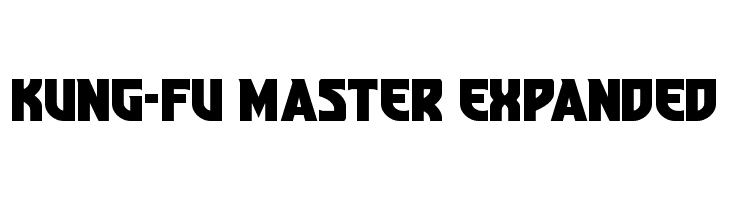
A bold, geometric font with an expanded width and strong visual impact.
A bold, italicized, and expanded font with sharp, angular edges for a dynamic look.
A bold, geometric font with a gradient effect created by horizontal lines.
A bold, italicized font with a gradient effect created by horizontal lines.
A bold, dynamic font with a halftone effect, ideal for impactful designs.
A bold, italicized font with a halftone effect, exuding energy and movement.
A bold, italicized font with angular, dynamic letterforms.
A bold, angular font with dynamic, martial arts-inspired design.
A bold, geometric outline font with a modern, dynamic style.
A bold, italicized outline font with a dynamic and geometric style.